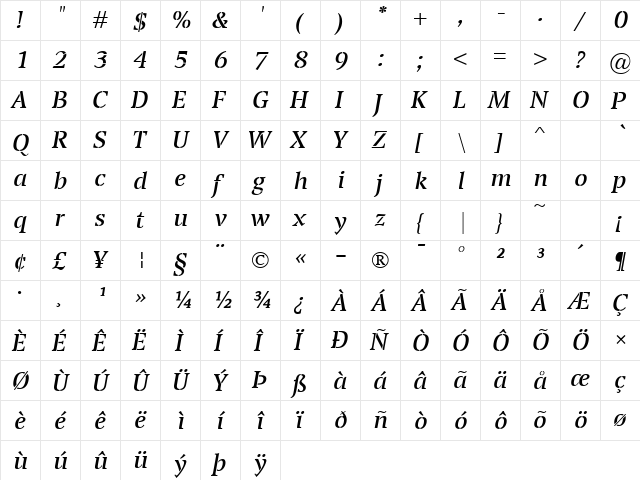
Transport Italic
Design Context for Transport Typeface
Transport brings high-energy athletic personality to the page — its confident, muscular forms are built for impact. The dynamic lean of this cut emphasises speed and emphasis in any layout.
Built for sports team identities, athletic apparel, event posters, and high-energy promotional material.
Font Pairing: Use alongside a condensed or geometric sans for supporting copy — keep the pairing bold, functional, and free of ornament.
Pro Tip: Transport thrives on contrast — try it large, bold, and tight against a clean background for maximum visual impact.